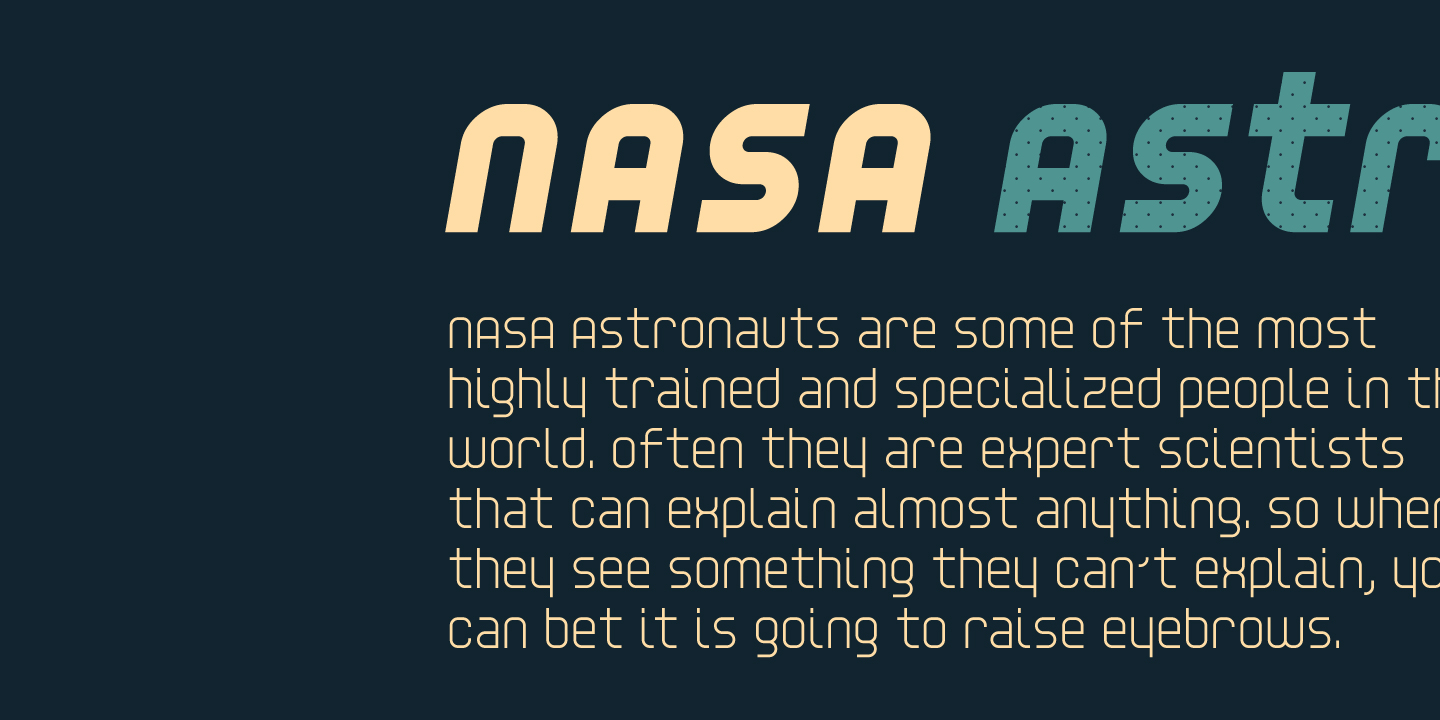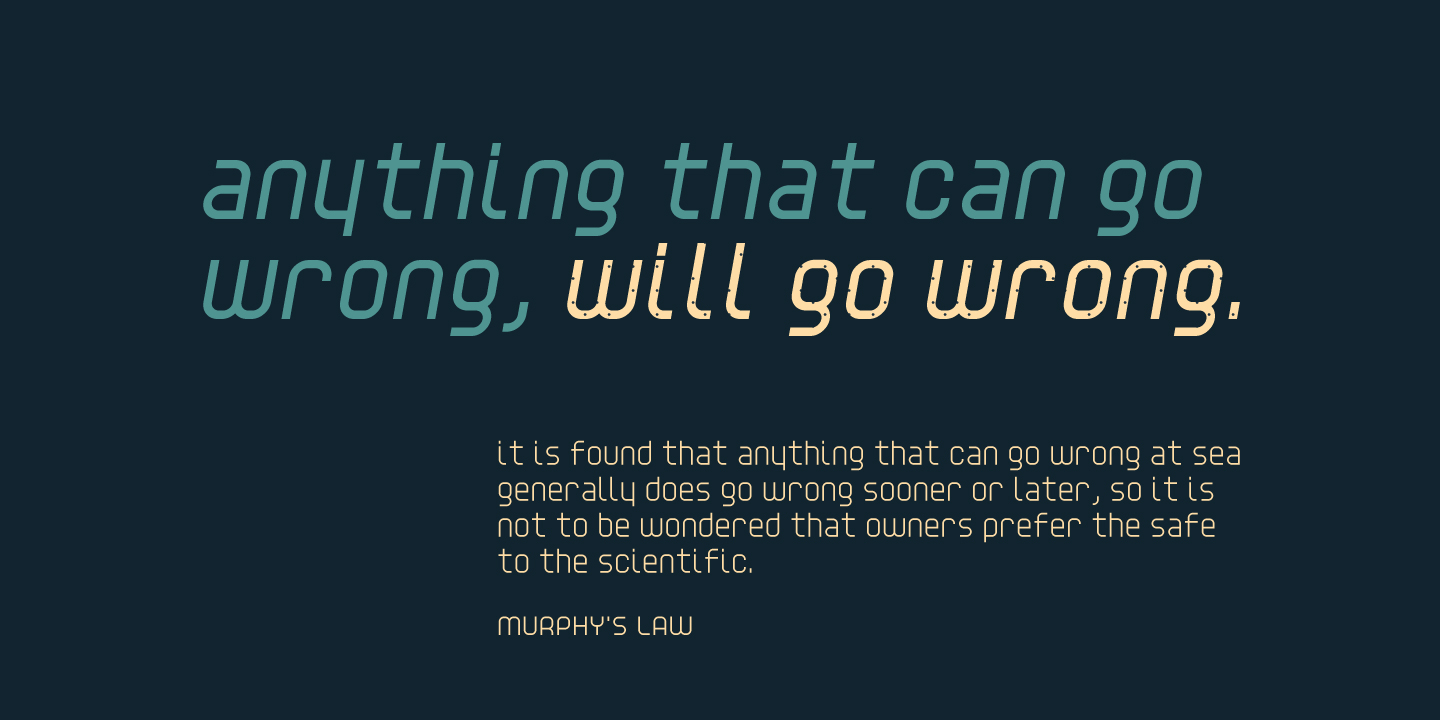
YWFT Unisect
Font Family by YouWorkForThem
Buy NowYWFT Unisect was built to act as the sister to the popular triple-lined typeface, YWFT Trisect. YWFT Unisect contains a minimal, geometric style that remains consistently legible no matter the point size. YWFT Unisect has been used numerous times by the magazines Wired and ESPN, and is used as the main menu font for the iOS space shooter Awesome Saucer. YWFT Unisect was converted to Opentype format in 2010. Designed exclusively by Michael Cina and YouWorkForThem.